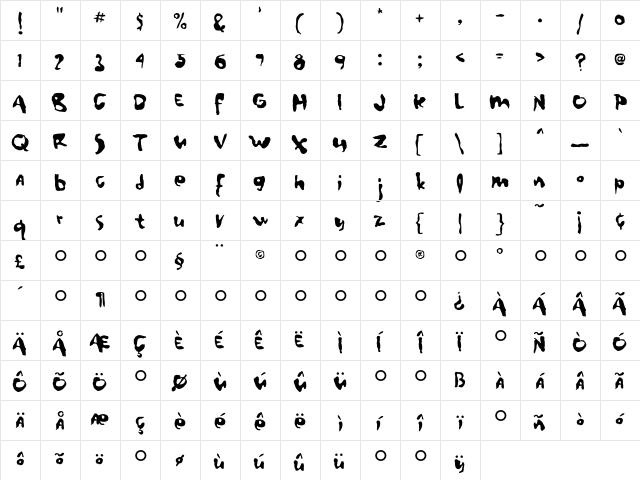
HouseSawce Regular
Design Context for HouseSawce Typeface
HouseSawce is a composed and adaptable typeface that performs quietly and consistently across a wide range of design contexts.